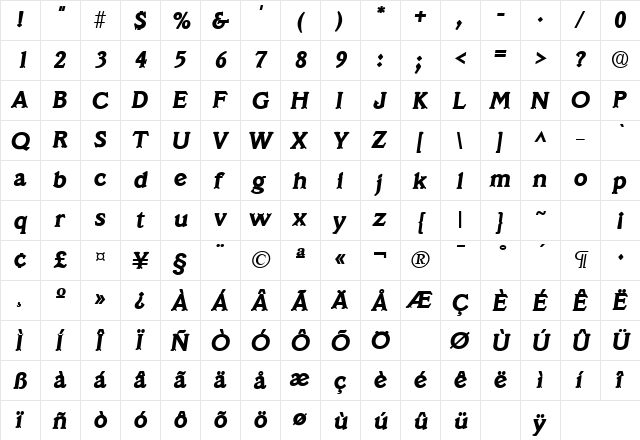
VeracruzLH Bold Italic Font Preview
VeracruzLH Bold Italic
Design Context for VeracruzLH Typeface
VeracruzLH takes a measured approach to typography — its balanced proportions and neutral character make it a reliable workhorse for both digital and print work. Its italic angle brings a sense of urgency and motion to the letterforms. The heavy weight commands attention and anchors typographic hierarchies.